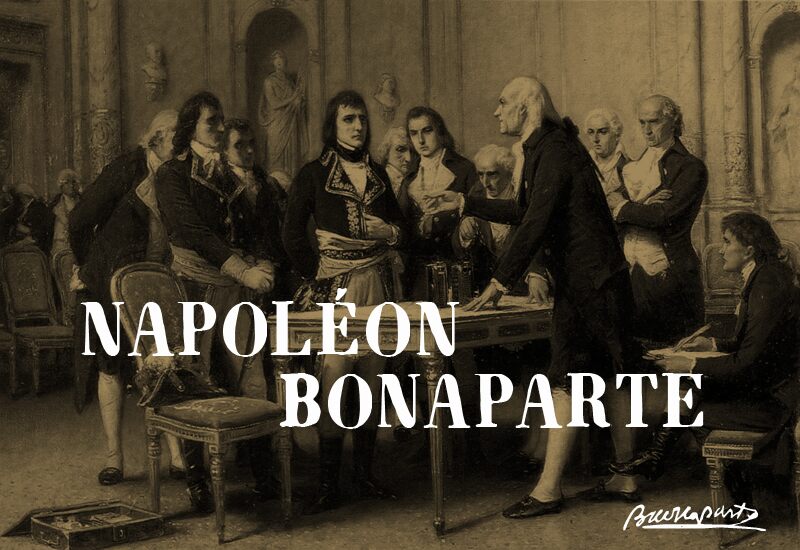
Napoleon is a free old-school display font with distorted, high-contrast capitals and theatrical antique flair. Tall, narrow letters rise from broad, uneven serifs, with pinched joins and warped curves keeping the design from looking formal.
A vintage spirits brand or eccentric restaurant could use it for labels, menus, and signage. It also suits posters for cabaret and historical entertainment. The exaggerated serifs and irregular contours turn each word into period decoration instead of a neutral caption.